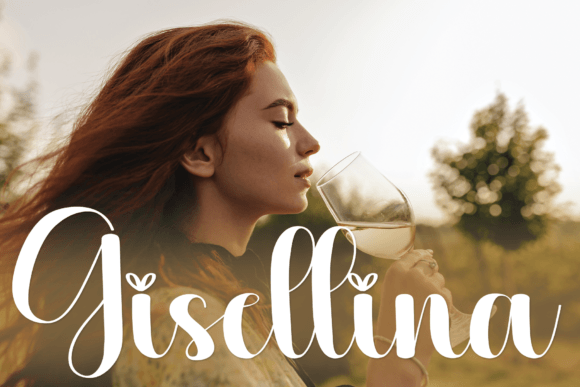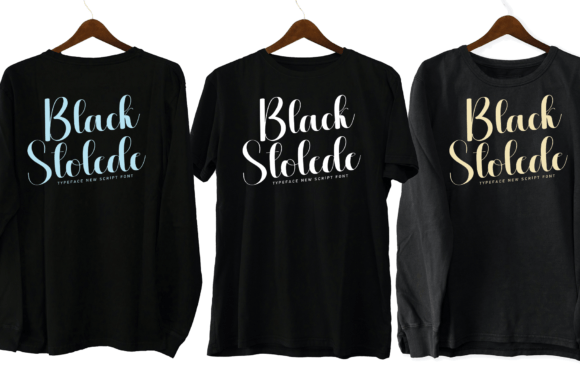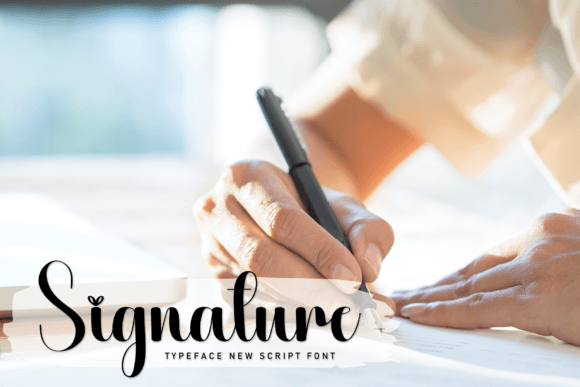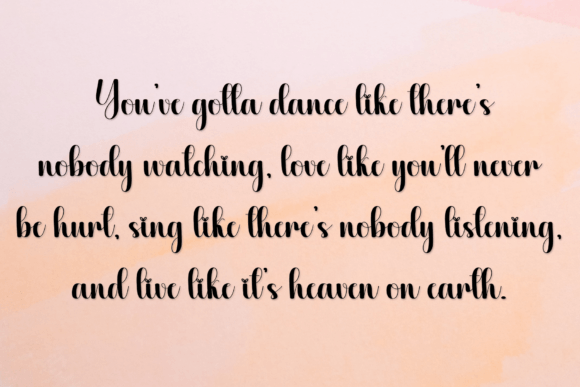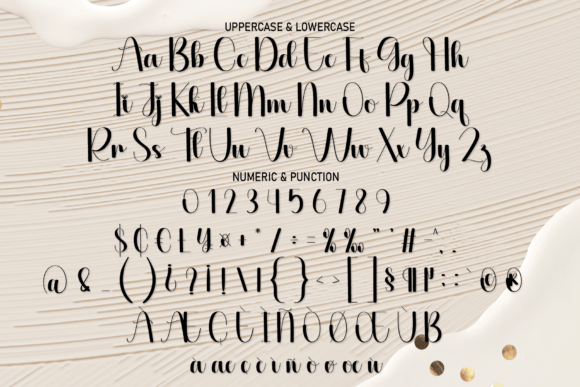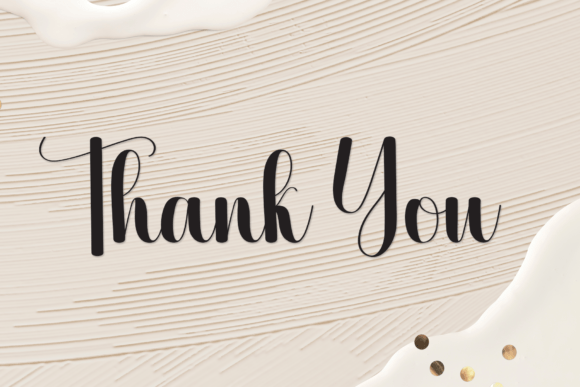
Bunch Font – Free Download
Introduction to Bunch Font
Bunch is a flowing handwritten font, described by an elegant touch, perfect for your favorite projects.
Key Features of Bunch Font
Why Choose Bunch Font?
Bunch Font offers exceptional quality and versatility, making it a valuable addition to your design toolkit. Whether you’re creating for personal projects or commercial use, Bunch Font delivers professional results.